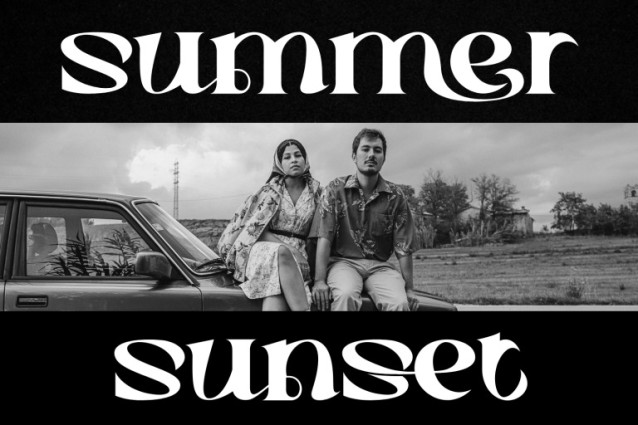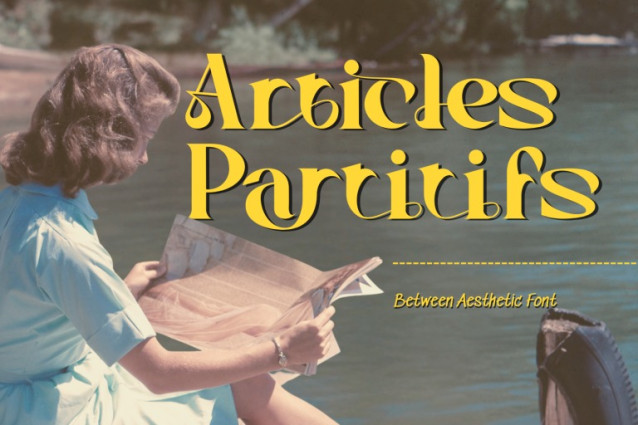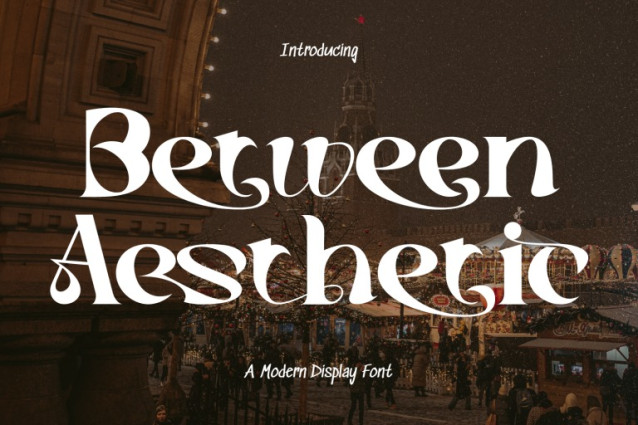
Between Aesthetic Font
Between Aesthetic Font – Elegant Retro Serif with Teardrop Terminals & Soft Curves, is a stylish serif typeface that blends retro charm with modern sophistication. Featuring smooth curves, subtle stroke contrast, and distinctive teardrop terminals, this font delivers a unique and inviting personality to your designs. Perfect for branding, editorial layouts, packaging, wedding invitations, and high-end advertising, it offers both elegance and versatility. With over 100 custom ligatures, Between Aesthetic ensures natural letter connections and beautifully composed typography, allowing your text to feel as if it was crafted by hand.
Uppercase and Lowercase Letters
100+ Special Ligatures for Unique Letter Combinations
Multilingual Support with Accented Characters
Soft Curves & Elegant Teardrop Terminals
Balanced Retro-Modern Aesthetic